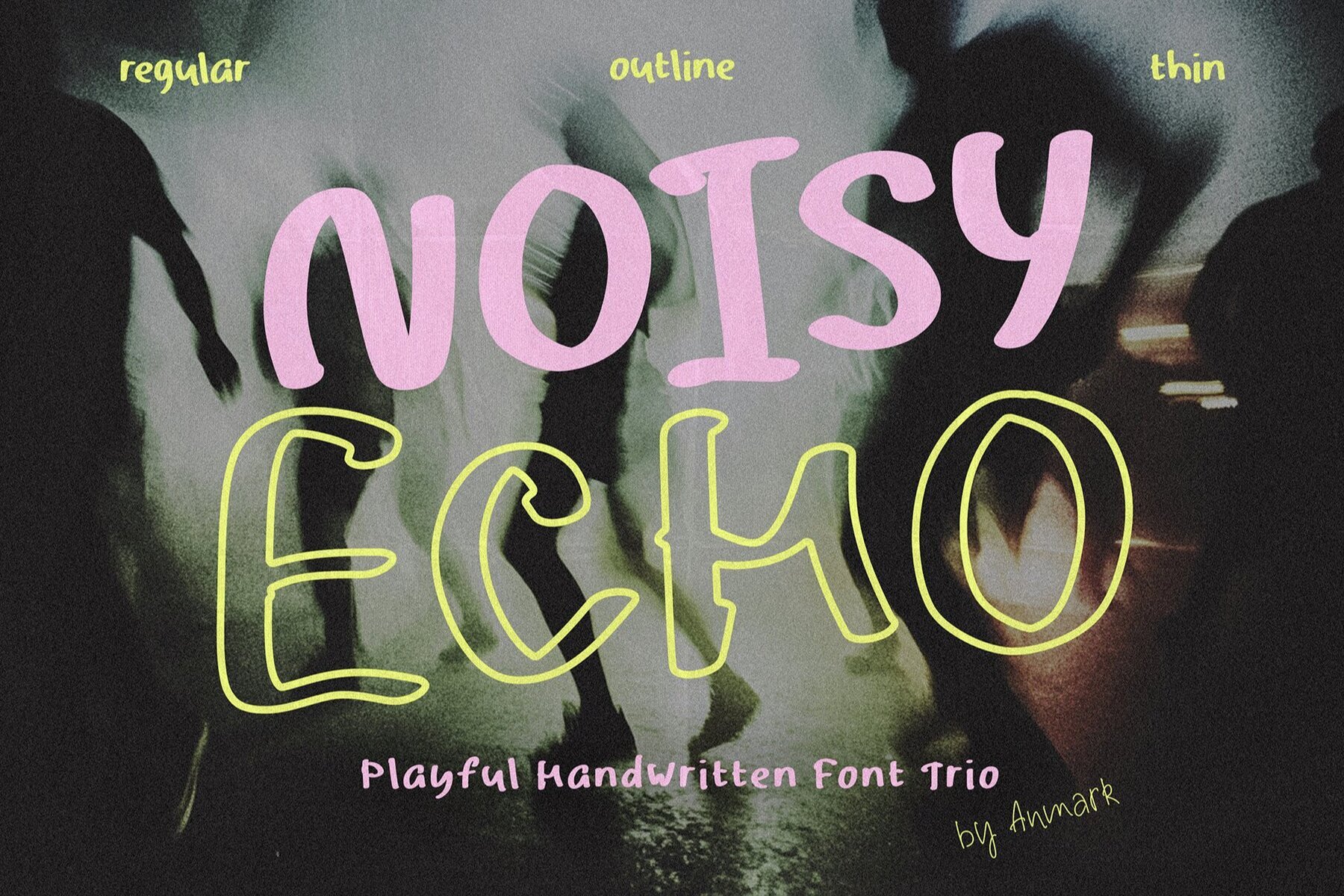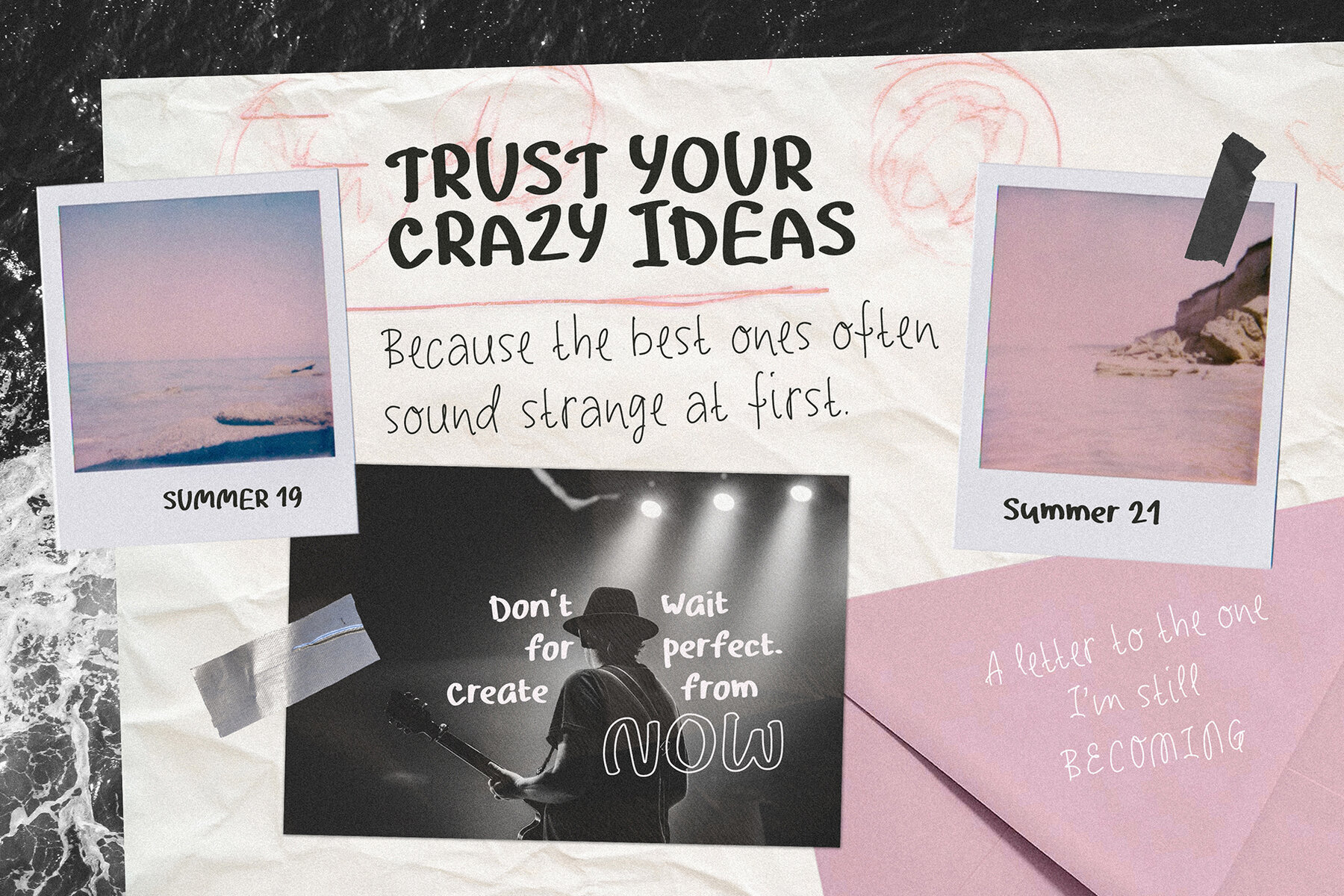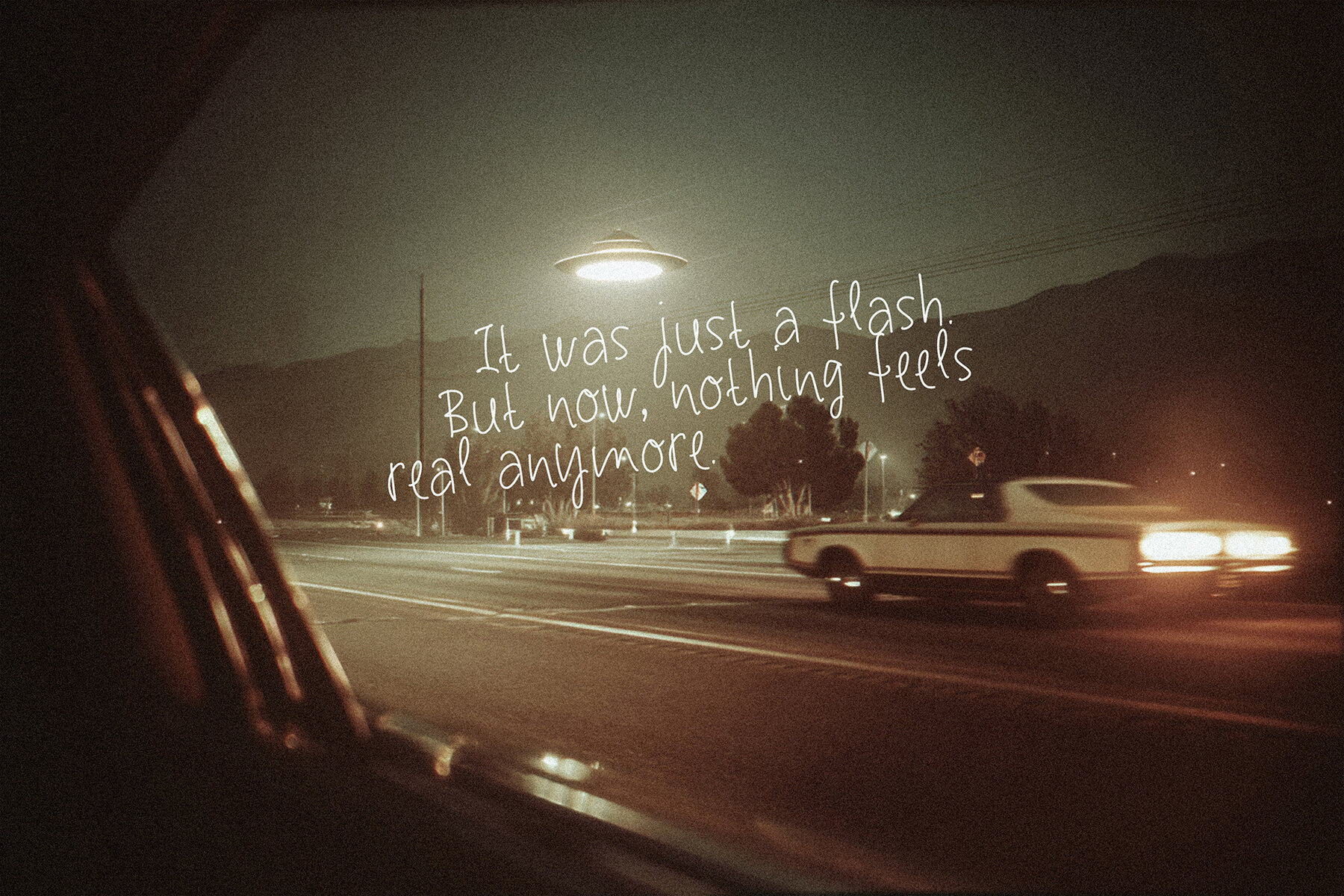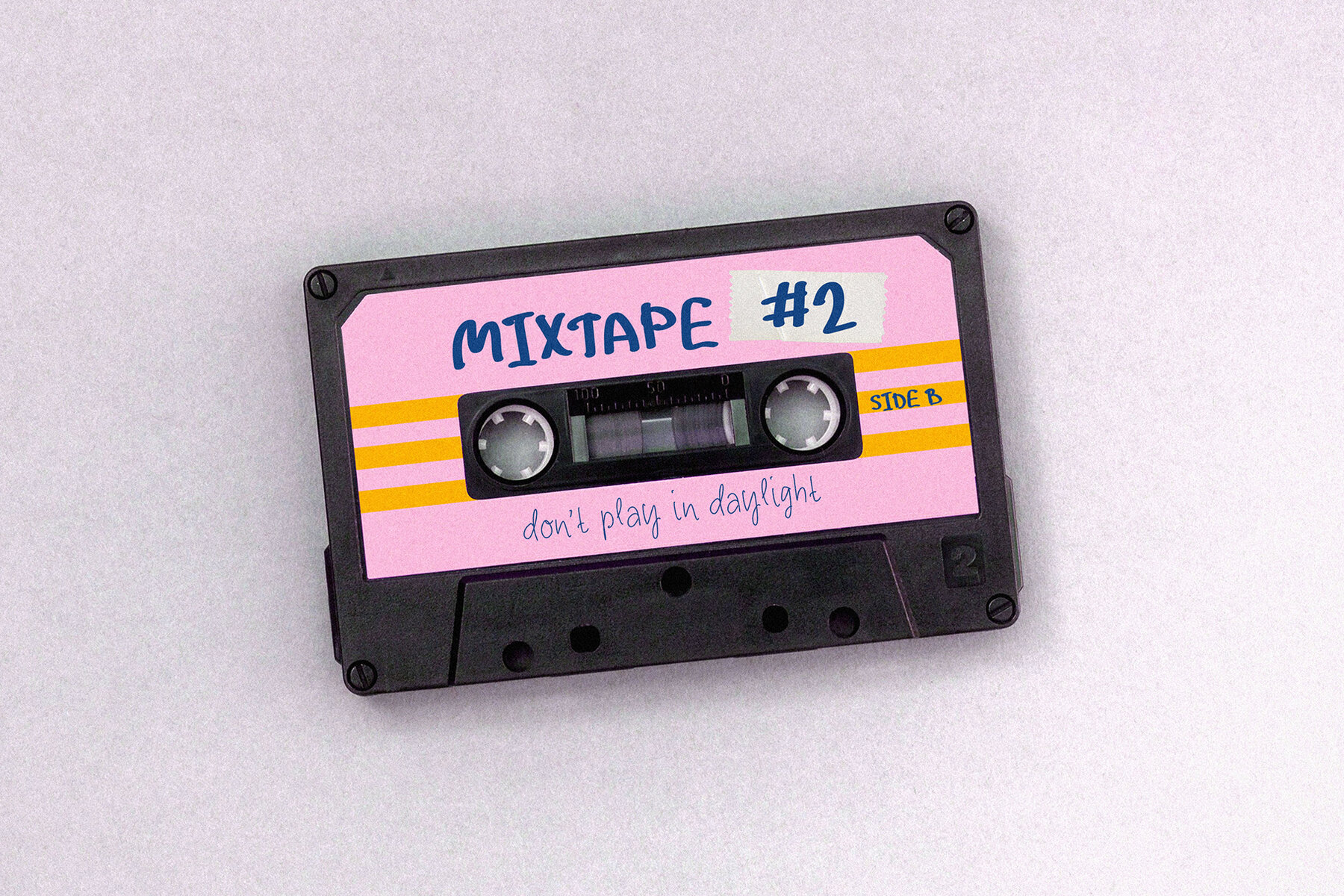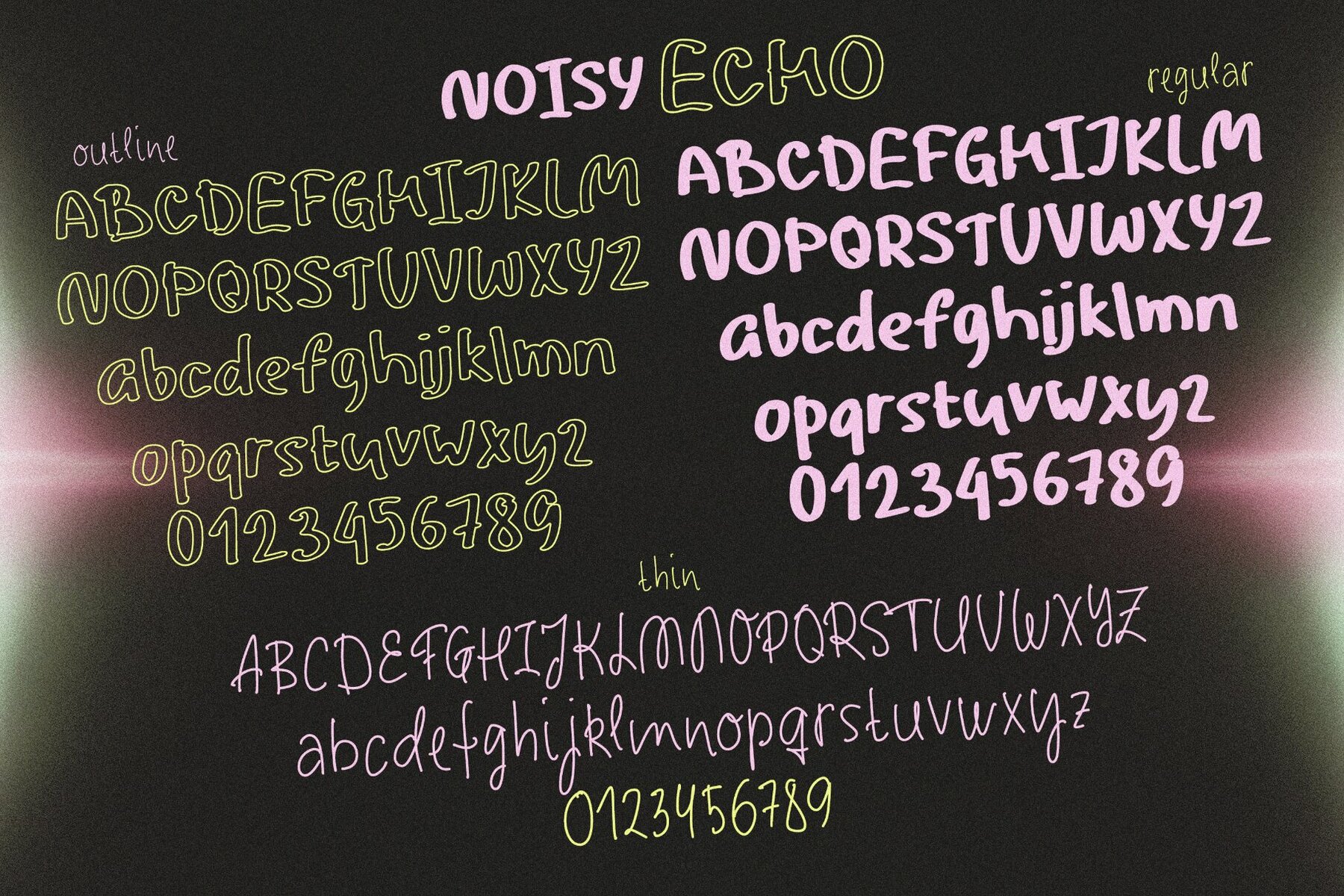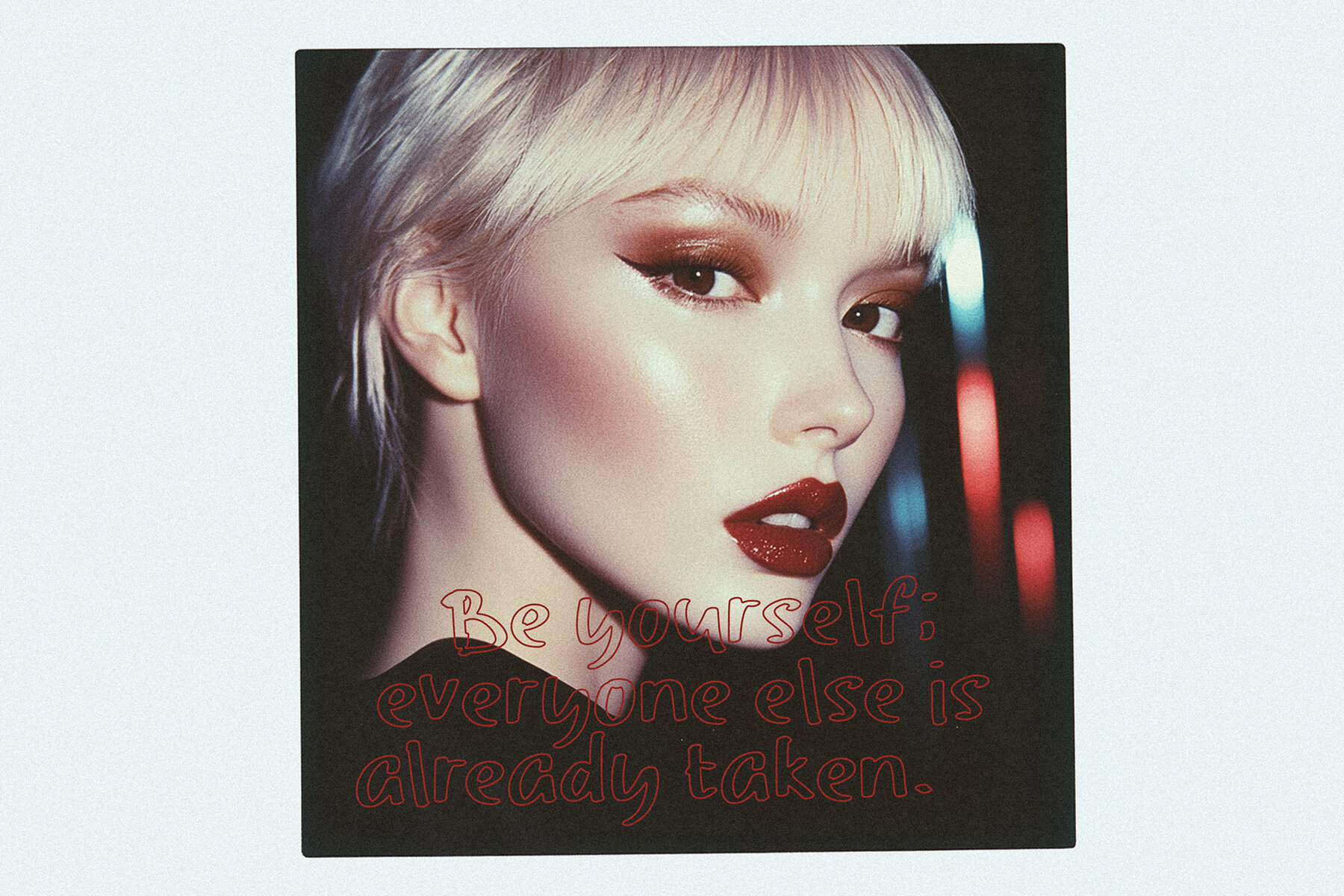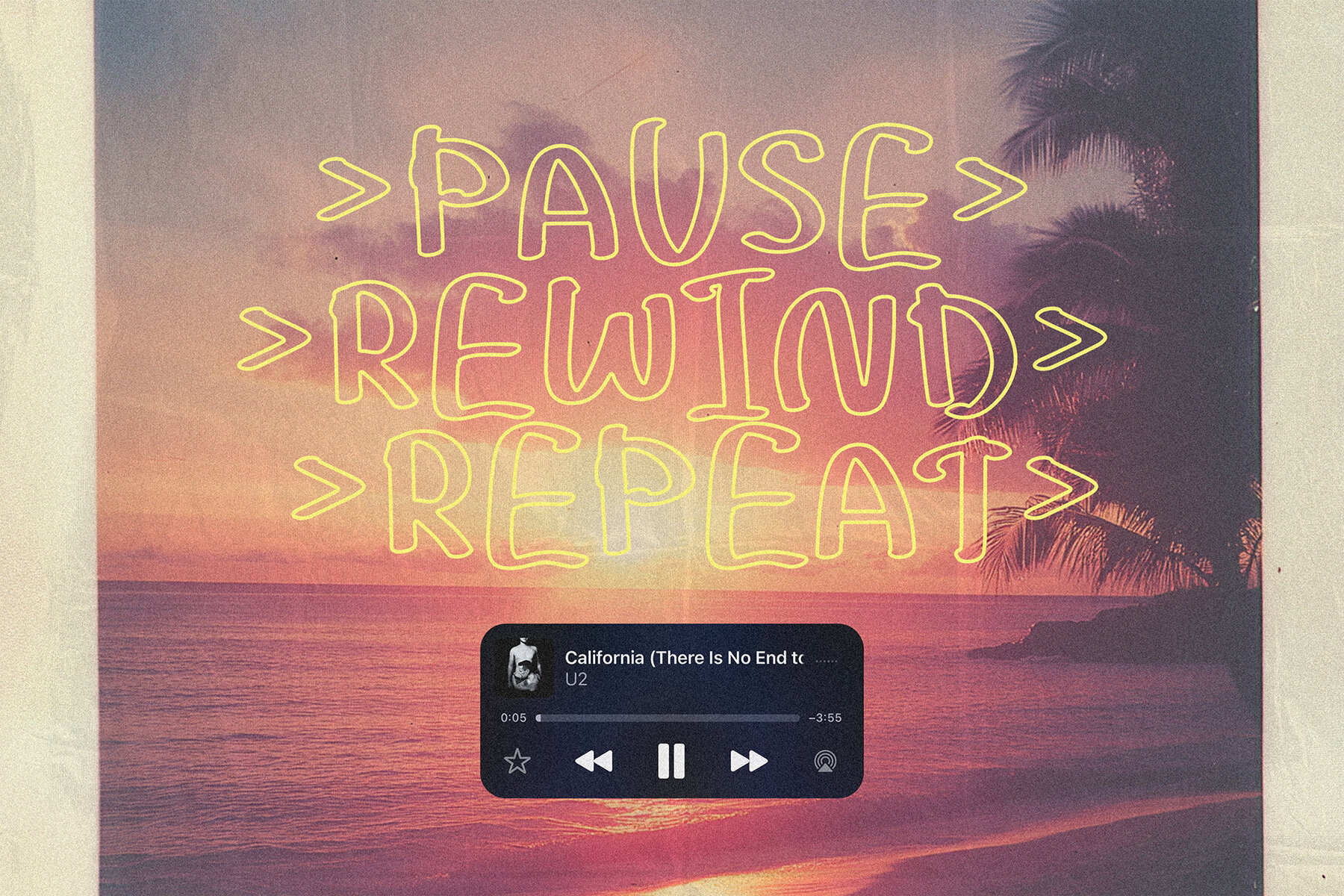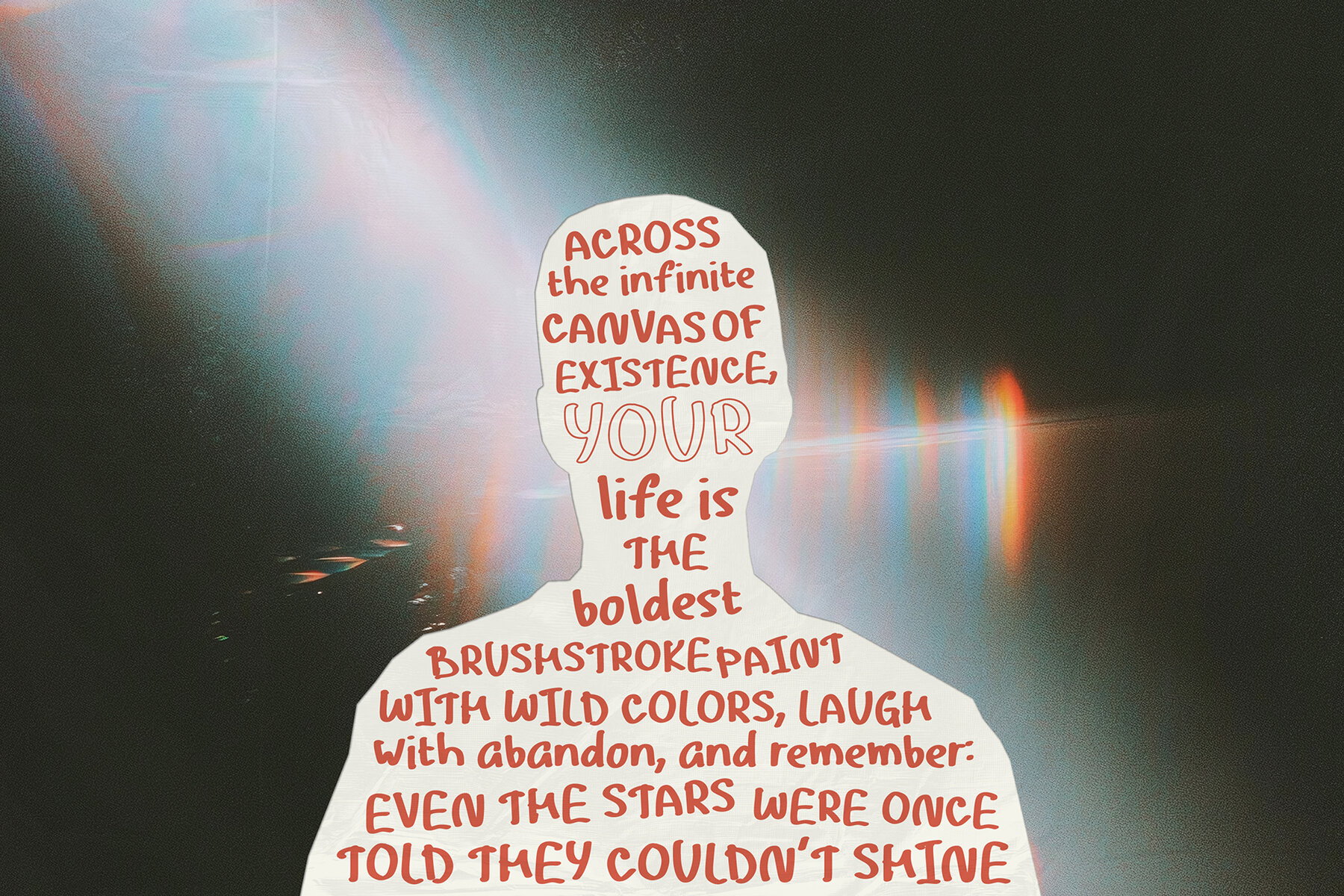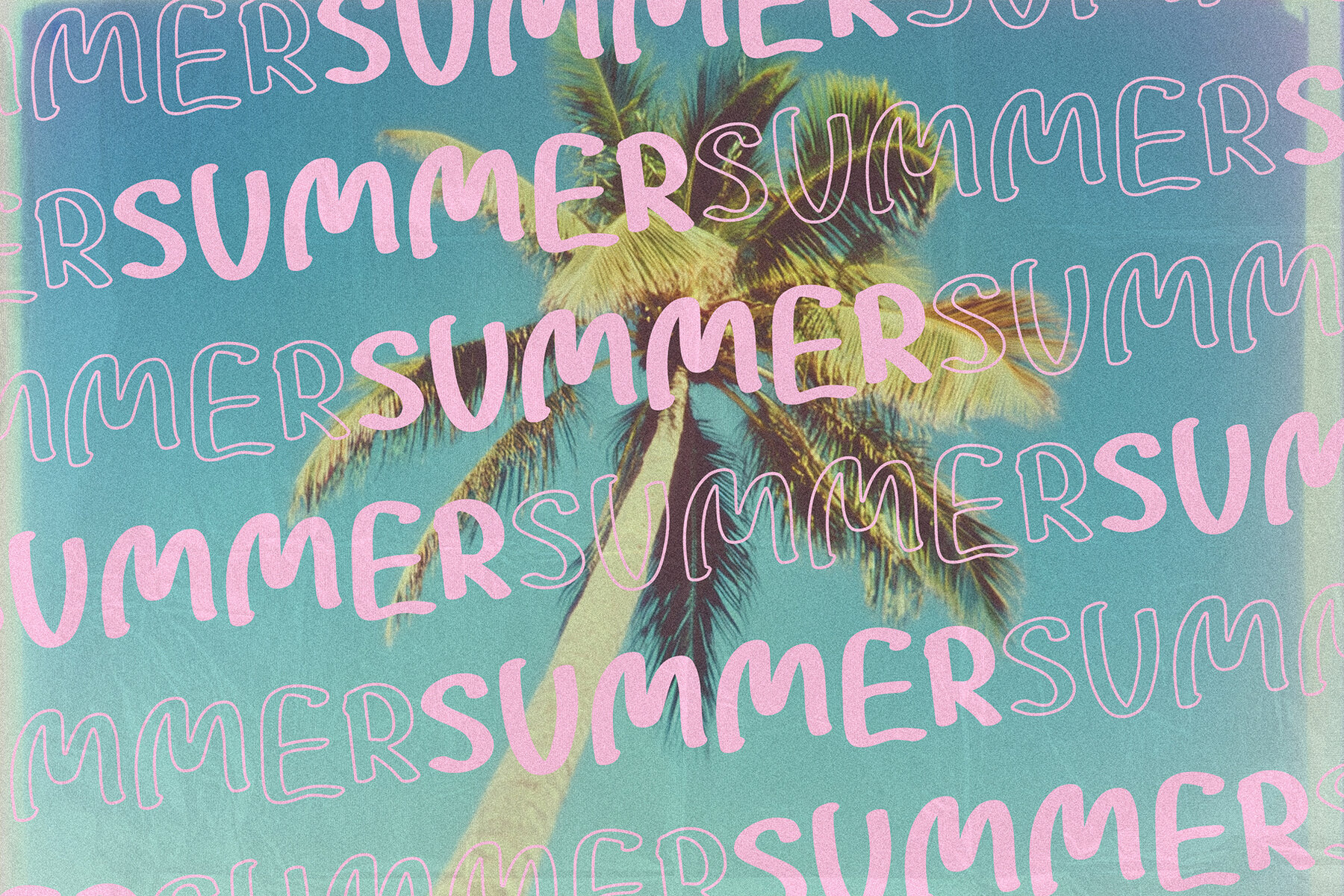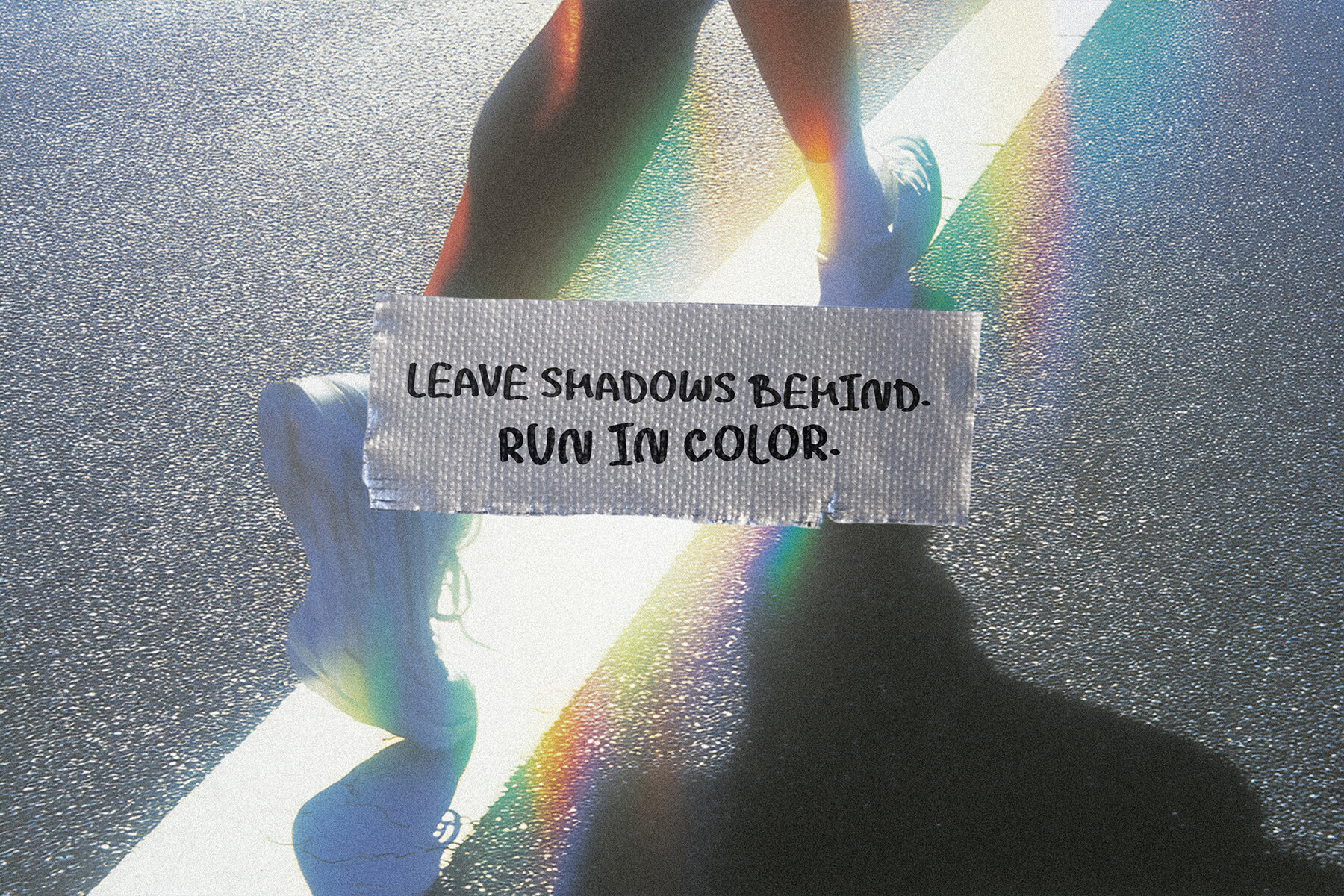
Noisy Echo Font
Noisy Echo Thin
Noisy Echo
Noisy Echo Outline
Noisy Echo is an energetic handwritten font set that brings vibrance and personality to your projects. Ideal for designers seeking an assertive font, it includes three distinct styles—Regular, Outline, and Thin—that can be seamlessly combined. The Regular style of Noisy Echo exudes bold confidence, making it perfect for striking headlines, posters, and branding projects. You can use it wherever a strong, impactful message is needed. Noisy Echo Outline maintains the playful energy but in a contour format. This version offers dimensionality and is particularly suited for zines, music covers, and unique label designs. Noisy Echo Thin provides a lighter, airier contrast to its bolder counterparts. It's ideal for handwritten quotes, social media content, or any context where a softer touch is desired. This trio is versatile, suitable for branding, packaging, posters, children's designs, stickers, invitations, digital collages, album art, and lifestyle blogs. It excels in editorial design, creative advertising, and playful typography.Noisy Echo: Expressive Handwritten Font Trio
Embrace the bold character of Noisy Echo—a font trio that infuses visual energy across diverse creative endeavors.